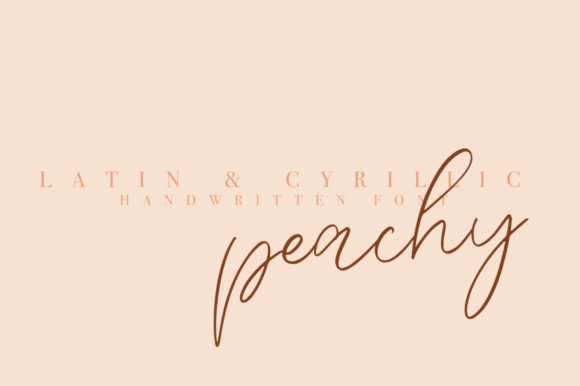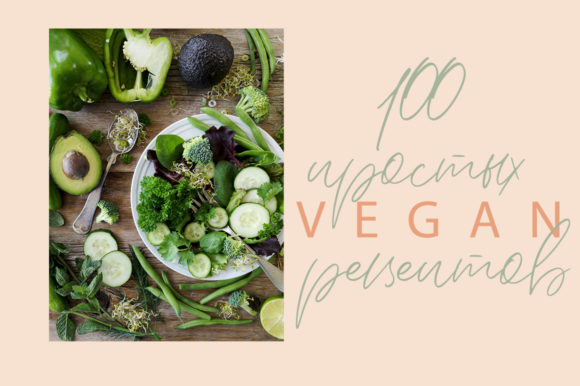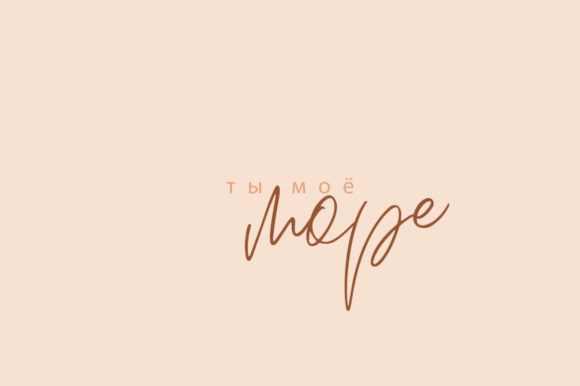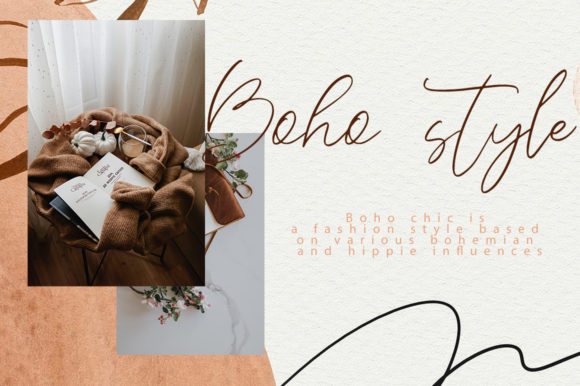
Peachy Font
About the Peachy Font
Get ready to be inspired by Peachy Font, a fresh and dynamic typeface for modern creators. Peachy is a thin and flowing handwritten font. This font is perfect for a wide variety of project such as: logo, photography, watermark, quotes, blog header, poster, wedding, branding, logo, fashion, apparel, letter, invitation, stationery and more.
Peachy’s delicate nature makes it ideal for projects requiring a touch of elegance and femininity, such as wedding invitations, branding for beauty or fashion brands, and projects needing a hand-crafted feel. It excels in headlines, short quotes, and logos where its flowing script adds visual interest. However, avoid using Peachy for body text or lengthy paragraphs; its thin strokes and cursive style make it difficult to read at smaller sizes.
Consider pairing Peachy with a clean sans-serif like Lato for a modern contrast, or a classic serif such as Playfair Display for a more traditional feel. For a playful juxtaposition, a geometric sans-serif like Montserrat could work well.
Peachy projects a soft, romantic, and sophisticated personality. Its thin lines suggest delicacy and refinement, making it unsuitable for projects requiring bold statements or strong readability in large blocks of text.
Peachy Font Usage Examples
Peachy Font Example